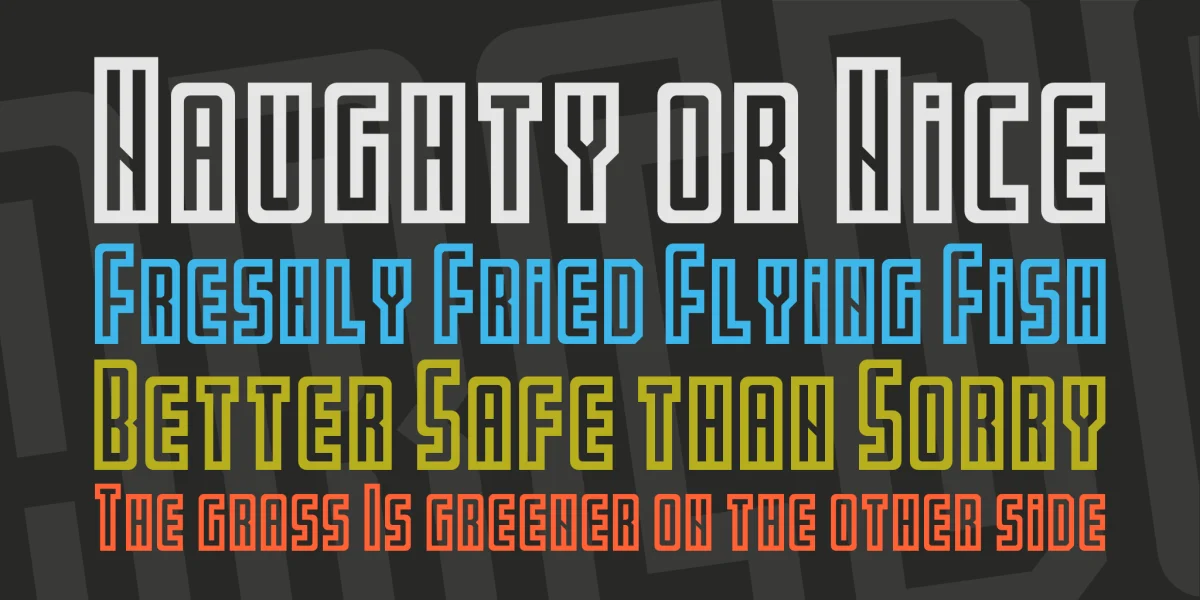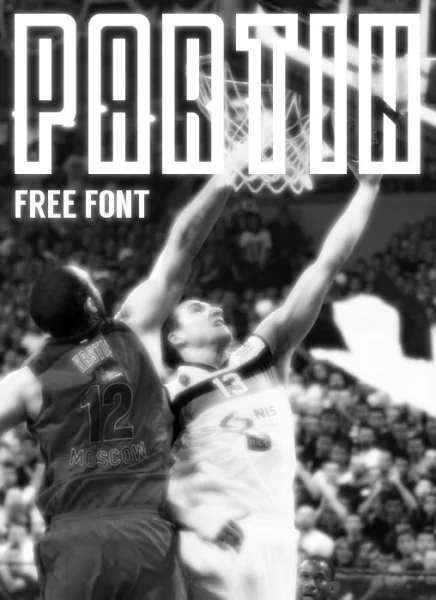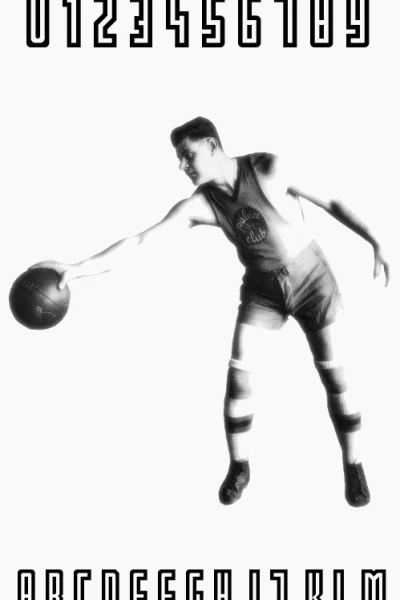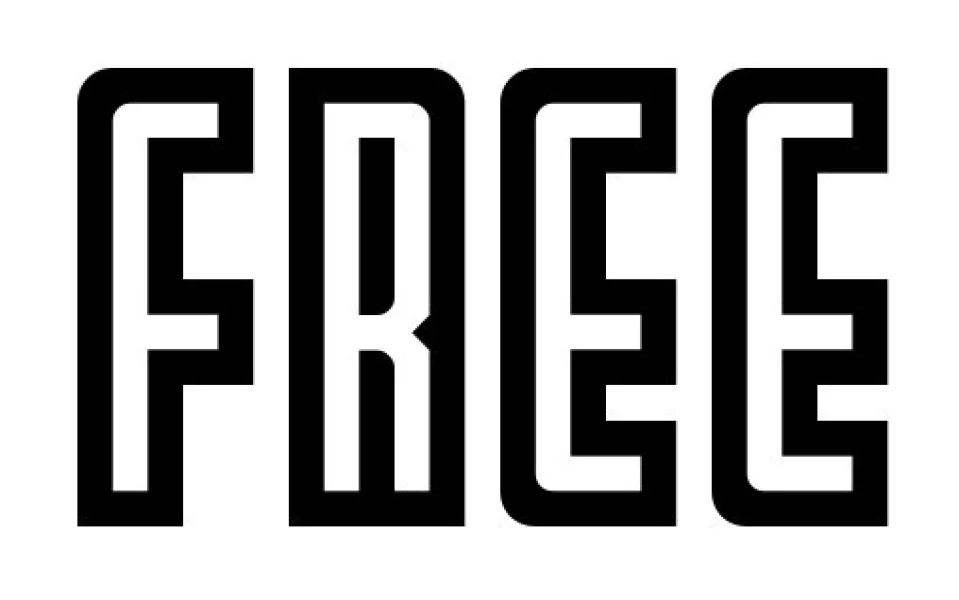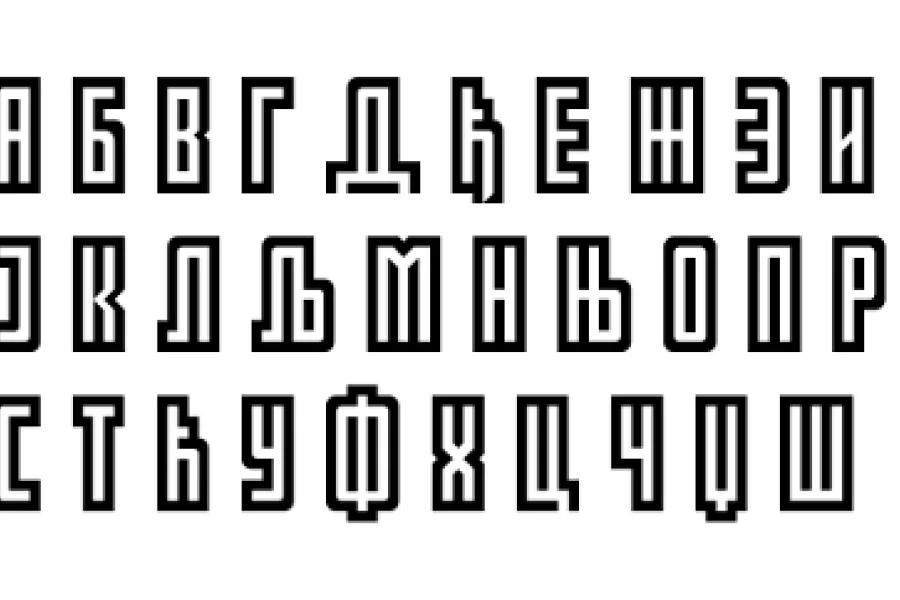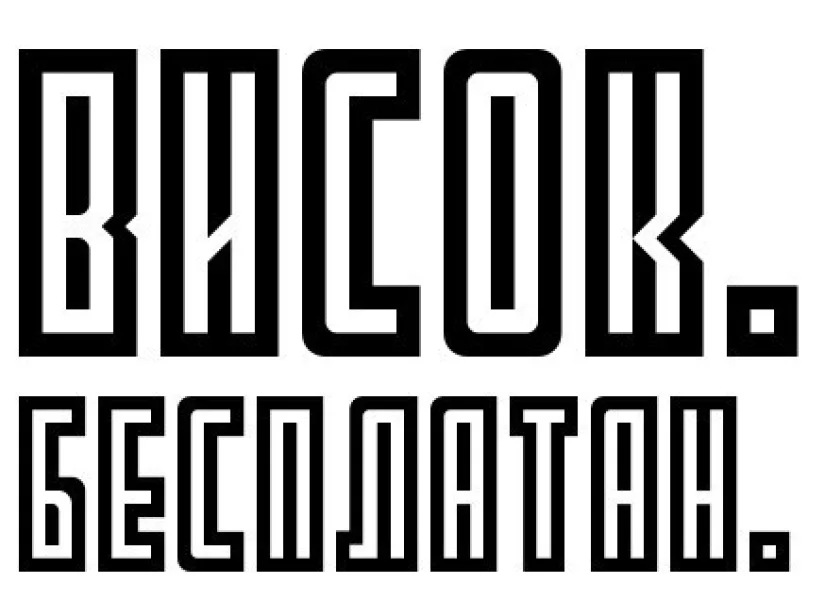
PARTIN is clean tall and free font inspired by basketball. Alphabet and serbian cyrillic included. Font is made with fontstruct and contains upper case and alternative small caps letters. Please read the license and give credit if you use it. Give it a shot!